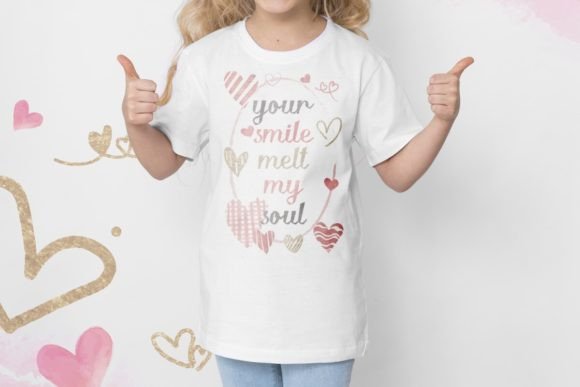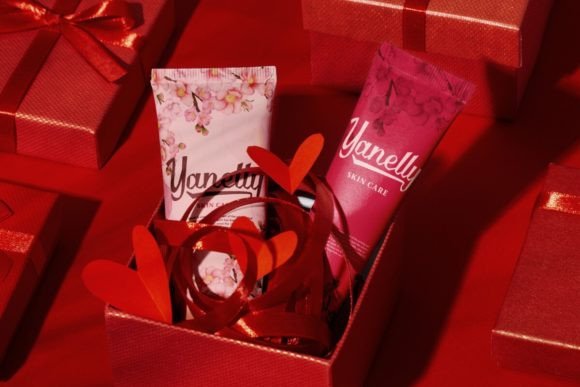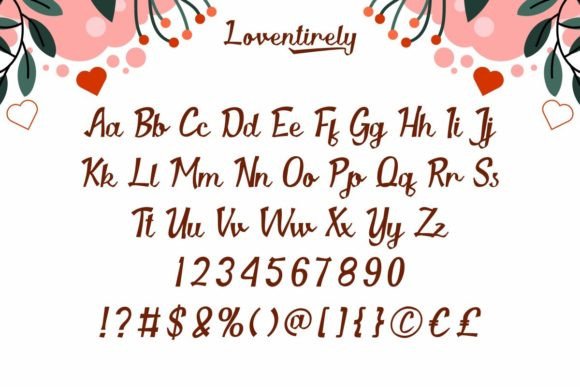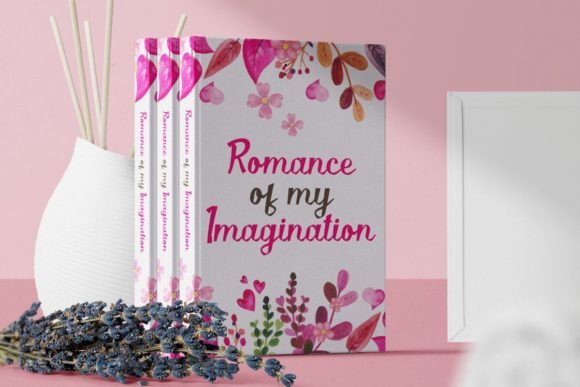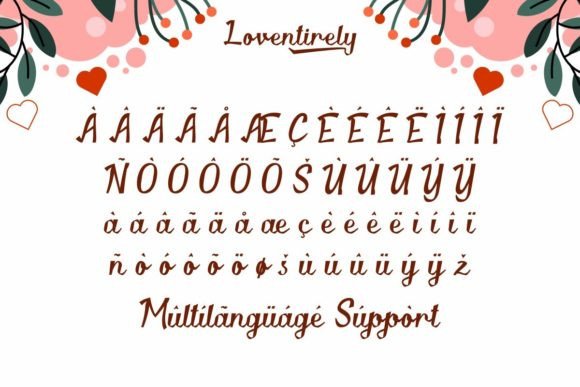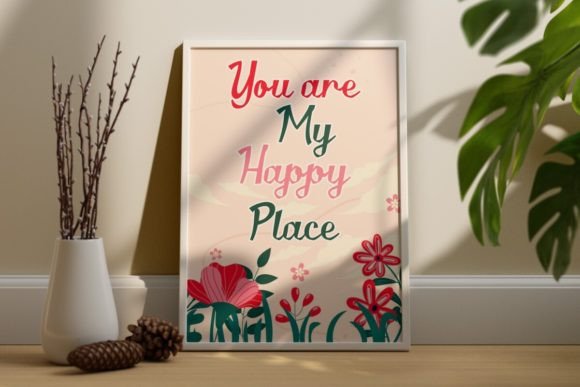
Introduction to Loventirely Font
Have you ever been scrolling through a design inspiration board and come across a font that makes your heart skip a beat? That’s exactly what happened to me when I stumbled upon the Loventirely Font. Its beautiful, flowing lines and romantic appearance instantly captured my attention, and I couldn’t wait to learn more about this lovely handwriting font.
As a designer, I know how valuable it is to have access to high-quality design resources like the Loventirely Font. Not only does it add a touch of elegance to any project, but it’s also incredibly versatile, making it suitable for a wide range of industries, from beauty and fashion to publishing and more.
With its transparent background and free download option, the Loventirely Font is an absolute treasure trove for creatives working on their next big project. Whether you’re designing a wedding invitation, a beauty product label, or a fashion magazine, this font is sure to elevate your design to the next level.
Key Features of Loventirely Font
- High-quality design resource ideal for creative projects and free download, perfect for designers and artists.
- Transparent background, allowing for easy customization and integration into various design elements.
- Font size: 1,000 characters, with a character map for easy access to all available glyphs and symbols.
- High-resolution design, suitable for both screen and print use, with a resolution of 300 DPI (dots per inch).
- Unique, handcrafted design elements and ornaments, adding a touch of elegance and sophistication to any creative project.
Honest Review: Loventirely Font
I recently had the chance to work with the Loventirely Font, and I must say it’s been a great addition to my design resources. This free download has been a game-changer for my creative projects.
- High-quality design: The Loventirely Font is incredibly detailed and crisp, making it perfect for any design project.
- Transparent background: This feature allows for seamless integration with any background image or color, giving designers more flexibility.
- Extensive character set: The font includes a wide range of characters, including accented letters and punctuation marks.
- ⚠️ Limited font styles: The Loventirely Font only comes in a few styles, which may limit its versatility in certain designs.
- ⚠️ No webfont version: This means designers will need to download and upload the font files manually, which can be a hassle.
Overall, I’m really impressed with the Loventirely Font. Its high quality and transparent background make it a great resource for designers. While it may have some limitations, it’s still a valuable addition to any design toolkit.
Tips for Getting the Most Out of Loventirely Font
To get the most out of Loventirely Font, use it on a transparent background to create a clean and modern design. Experiment with different font sizes and styles to add depth and visual interest to your project.
Loventirely Font is perfect for creative projects, such as:
Logo designs
Brochures and flyers
Business cards and stationery
Infographics and presentations
Alternatives to Loventirely Font
Alex Brush is a beautiful, elegant script font perfect for creative projects that require a touch of sophistication. It features a high-quality design with a transparent background, making it ideal for backgrounds and overlays. When to use: Wedding invitations, branding, and high-end marketing materials. Comparison to Loventirely Font: Alex Brush has a more refined and delicate feel, while Loventirely Font is more playful and whimsical.
Crimson Text
Crimson Text is a high-quality serif font designed for body text and titles. It features a classic design with a transparent background, making it suitable for a variety of design projects. When to use: Long-form content, academic papers, and corporate reports. Comparison to Loventirely Font: Crimson Text is more formal and serious, while Loventirely Font is more casual and playful.